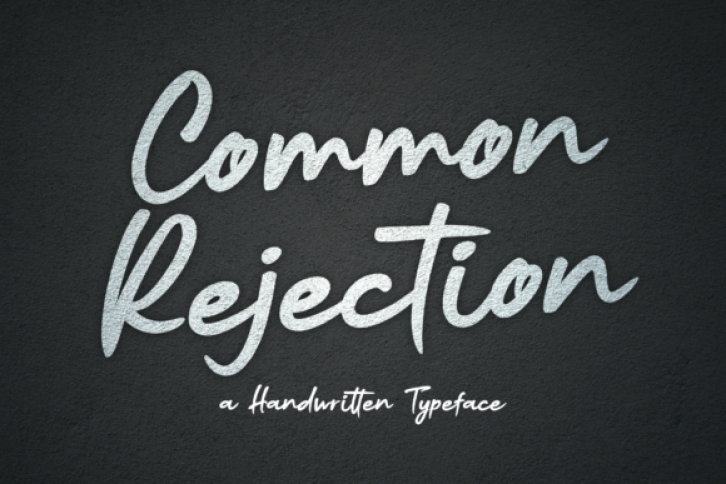
Common Rejection is a modern and stylish handwritten font. It can be applied in logos, quotes, travel titles, movie titles, blogs, show event titles, t-shirt designs, tumbler designs, community and company logos.